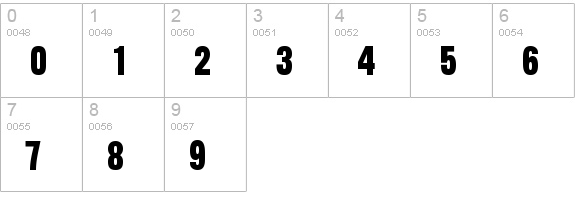
Gothic 13 Font Details
Gothic 13 font is a stunning display typeface that exudes a classic and elegant appeal perfect for adding a touch of sophistication to your projects. With its sharp edges and intricate details, this font is ideal for creating bold headlines, striking logos, or eye-catching posters. The Gothic 13 font is versatile and can be used in various design applications to make a statement. The best part is that Gothic 13 font is completely free for personal and commercial use, making it a valuable addition to any designer's toolkit. You can easily download this font at FontsMarket.com and start using it in your projects right away. Don't miss out on the opportunity to enhance your designs with the timeless charm of Gothic 13 font.